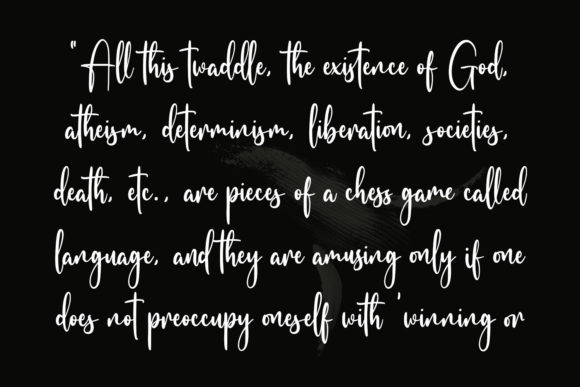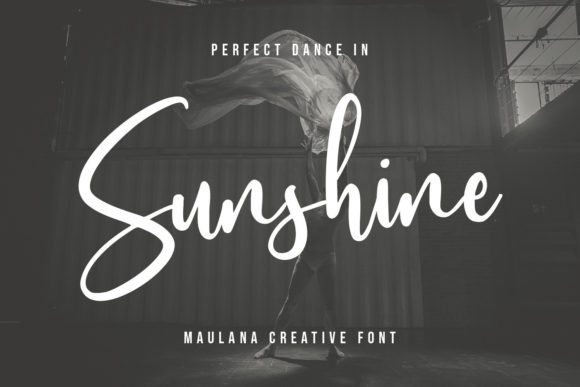
Rossa Emilobe Font
db-ku.com - Script & Handwritten -- Rossa Emilobe is a fancy script font. It features medium contrast strokes, fun characters, ligatures and alternates. It will add a luxury spark to any design project that you wish to create!